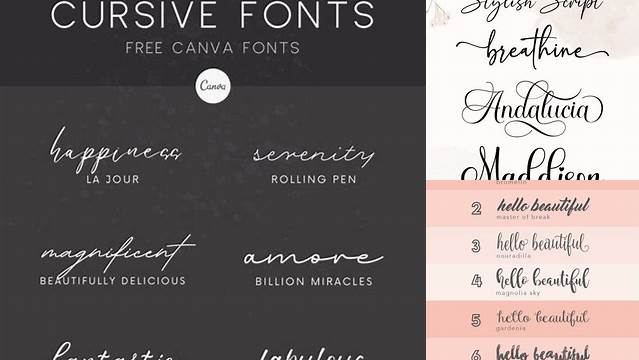
Best Cursive Fonts On DaFont: Your Ultimate Guide
Introduction: Unveiling the Charm of Cursive Fonts
Hey guys! Let's dive into the captivating world of cursive fonts. If you're looking to add a touch of elegance, personality, or a handcrafted feel to your projects, you've come to the right place. Cursive fonts, with their flowing strokes and connected letters, bring a unique flair to any design. They can evoke feelings of nostalgia, sophistication, and warmth, making them incredibly versatile for various applications. Whether you're designing wedding invitations, crafting logos, sprucing up your website, or even working on personal projects like journals or scrapbooks, the right cursive font can make all the difference. But with so many options out there, where do you even begin? Well, that's where DaFont comes in! DaFont is a treasure trove of fonts, and we're going to explore some of the best cursive fonts it has to offer. In this comprehensive guide, we'll not only highlight some stellar choices but also discuss what makes them work, where they shine, and how to pick the perfect cursive font for your needs. So, buckle up and let's get started on this exciting journey through the world of flowing letters and beautiful typography!
What Makes a Great Cursive Font?
Before we jump into specific fonts, let's talk about what actually makes a cursive font great. It's not just about looking pretty – although that's definitely a plus! Several factors contribute to a font's overall quality and usability. First off, legibility is key. A stunning, swirly font is useless if nobody can read it. The letters need to connect smoothly, but they also need to be distinct enough to be easily recognized. Think about the audience and the context. Is this for a large heading, or smaller body text? Next up, we've got style and personality. Cursive fonts can range from formal and elegant to playful and whimsical. The best fonts will have a consistent style that matches the tone of your project. Are you aiming for a classic, vintage feel? Or perhaps something more modern and free-spirited? Then, there's the font’s versatility. Can it be used in various sizes without losing its charm? Does it include a good range of characters, including uppercase and lowercase letters, numbers, and punctuation? A versatile font will give you more flexibility in your designs. Let's not forget about kerning and spacing. Kerning is the space between individual letters, and proper kerning ensures that the font looks balanced and harmonious. Poor kerning can make a font look awkward and unprofessional. Spacing, in general, also plays a crucial role in readability and visual appeal. The weight and thickness of the lines are also important. A font that's too thin might get lost, especially in smaller sizes, while a font that's too thick can look clunky and overpowering. The ideal weight will depend on the project and the surrounding design elements. Considering these factors will help you choose the best cursive fonts that truly enhance your work.
Top Cursive Font Picks on DaFont
Alright, let’s get to the good stuff – the fonts themselves! DaFont is a goldmine, and I’ve handpicked some fantastic cursive fonts that I think you'll absolutely love. Each of these fonts brings something unique to the table, so there's bound to be a perfect match for your project. We'll cover a range of styles, from elegant and refined to casual and playful. We will delve into a curated selection of top cursive fonts available on DaFont, highlighting their unique characteristics and ideal applications. First up, let’s talk about ”Great Vibes”. This is a classic choice for wedding invitations and elegant designs. It's got a beautiful, flowing script with graceful loops and swirls. It's highly legible and has a timeless quality that makes it a real winner. It's incredibly versatile and adds a touch of sophistication to any design. If you’re looking for something with a more handwritten feel, check out ”Honey Script”. This font is charming and a little bit quirky, with a personal touch that makes it feel authentic. It’s perfect for blog headers, social media graphics, or anything that needs a friendly, approachable vibe. The slightly imperfect strokes give it a unique and endearing quality. For a modern and stylish look, consider ”Blacksword”. This cursive font has a bold, confident presence, with strong strokes and a touch of edginess. It’s great for logos, branding, and designs that need to make a statement. It exudes a sense of power and sophistication. If you’re after something delicate and whimsical, ”Learning Curve” is a great choice. It’s light and airy, with a playful feel that’s perfect for children’s books, greeting cards, or anything that needs a touch of sweetness. The gentle curves and playful loops make it a delightful option. For a more vintage-inspired look, ”Marketing Script” is a fantastic option. It has a classic, almost retro feel, reminiscent of mid-century advertising. It’s great for posters, signs, and designs that need a touch of old-school charm. Its elegant flourishes and distinct letterforms evoke a sense of nostalgia. These are just a few examples, and there are countless other amazing cursive fonts on DaFont waiting to be discovered. Each font has its own unique personality, so take your time to explore and find the ones that resonate with you and your project's needs. Remember, the right font can elevate your design from good to great!
How to Choose the Right Cursive Font for Your Project
Okay, so you've seen some awesome cursive fonts, but how do you actually pick the right one for your project? It's not just about choosing the prettiest font; it's about finding one that fits the message and tone you're trying to convey. Think of your font as a voice – it needs to speak the same language as your design. To nail this, consider a few key factors. First, think about your audience. Who are you trying to reach? A formal, elegant font might be perfect for a wedding invitation, but it might feel out of place on a children’s birthday party flyer. Consider the age, interests, and expectations of your target audience. What kind of vibe are they looking for? Next, consider the context. Where will the font be used? A font that looks great on a large poster might be illegible on a small business card. Also, think about the overall design style. Does your project have a modern, minimalist aesthetic, or is it more vintage and ornate? Choose a font that complements the rest of your design elements. The message you're trying to convey is also crucial. Are you trying to communicate elegance, fun, seriousness, or something else entirely? Your font should support that message. A bold, confident cursive might work well for a logo, while a delicate, flowing script could be perfect for a heartfelt letter. Legibility is paramount. Even the most beautiful cursive font is useless if people can't read it. Make sure the letters are clear and distinct, and consider how the font will look in different sizes and on different backgrounds. A font with too many flourishes or overly intricate details might become difficult to read in smaller sizes. The weight and thickness of the font should also be considered. A thin, delicate cursive font can look elegant, but it might get lost on a busy background. A thicker font can stand out more, but it might also feel overwhelming if it's used in large blocks of text. Don't be afraid to try out different fonts and see how they look in your design. Experiment with different combinations of fonts and colors to find the perfect balance. Remember, the goal is to create a design that is both visually appealing and effective in communicating your message. Picking the right cursive font is an art, not a science, so trust your instincts and have fun with it!
Tips for Using Cursive Fonts Effectively
Using cursive fonts can really elevate your design, but like any design element, they need to be used thoughtfully. You don't want to go overboard and end up with a cluttered, illegible mess. So, here are some tips for using cursive fonts effectively. First off, don't overuse them. Cursive fonts are best used sparingly, as accent fonts or for headings and titles. Using too much cursive can make your design look overwhelming and difficult to read. Think of cursive fonts as a sprinkle of spice – a little goes a long way! Pairing cursive fonts with simpler, more legible fonts is a great way to create contrast and visual interest. A sans-serif or serif font can provide a nice balance to the flowing script of a cursive font. For example, you might use a cursive font for a heading and a sans-serif font for the body text. This helps to ensure that your design is both beautiful and readable. Pay attention to legibility. We've talked about this before, but it's worth repeating. Make sure your cursive font is easy to read, especially in smaller sizes. Avoid fonts with overly intricate details or excessive flourishes, particularly for body text. If you're using a cursive font for a logo, make sure it's still legible when scaled down. Consider the size and spacing. Cursive fonts often look best when they have a bit of breathing room. Avoid crowding the letters together, and make sure there's enough space between lines of text. Adjust the kerning and tracking as needed to create a balanced and harmonious look. Color can also play a big role in how a cursive font looks. A light, delicate cursive might look beautiful in a soft pastel color, while a bolder cursive could stand out in a strong, contrasting hue. Experiment with different color combinations to find what works best for your design. Consider the background. A busy or cluttered background can make a cursive font difficult to read. If you're using a cursive font on an image, make sure there's enough contrast between the text and the background. You might need to add a color overlay or shadow to make the text stand out. Finally, remember to test your design. Before you finalize your project, get feedback from others and make sure your cursive font is working well in all contexts. Print out your design, view it on different devices, and ask for honest opinions. This can help you catch any potential issues and make sure your design is as effective as possible. By following these tips, you can use cursive fonts to create stunning and impactful designs that truly capture the essence of your message.
Conclusion: Embracing the Elegance of Cursive Fonts
So, there you have it, guys! We've explored the enchanting world of cursive fonts, delved into what makes a font truly great, handpicked some top choices from DaFont, and even discussed how to effectively incorporate them into your projects. Hopefully, you're feeling inspired and ready to unleash the beauty of flowing scripts in your designs. Cursive fonts are more than just pretty letters; they're a powerful tool for conveying emotion, style, and personality. Whether you're aiming for classic elegance, modern sophistication, or whimsical charm, there's a cursive font out there that can perfectly capture your vision. Remember, the key to using cursive fonts effectively is to strike a balance between beauty and legibility. Choose fonts that are easy to read, use them sparingly, and pair them with simpler fonts to create contrast and visual interest. And most importantly, don't be afraid to experiment and have fun! Design is a creative journey, and exploring different fonts is a wonderful way to discover new possibilities and express your unique style. So, go ahead, dive into the world of DaFont, explore its vast collection of cursive fonts, and let your creativity flow. With the right font, you can transform ordinary designs into extraordinary works of art. Whether you're crafting wedding invitations, designing logos, creating social media graphics, or working on any other project, the elegance and personality of cursive fonts can add a touch of magic. Embrace the beauty of these flowing scripts, and let your designs speak volumes. Happy designing, everyone! And remember, the perfect cursive font is just a download away.